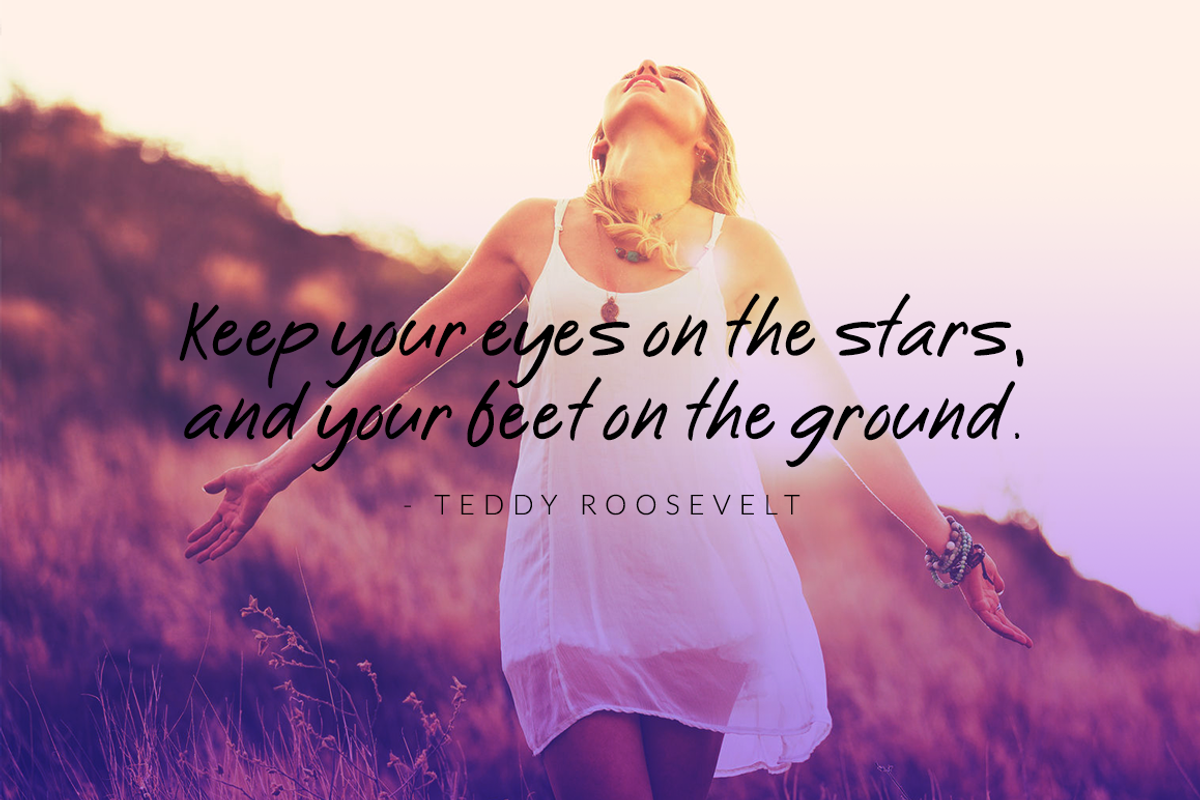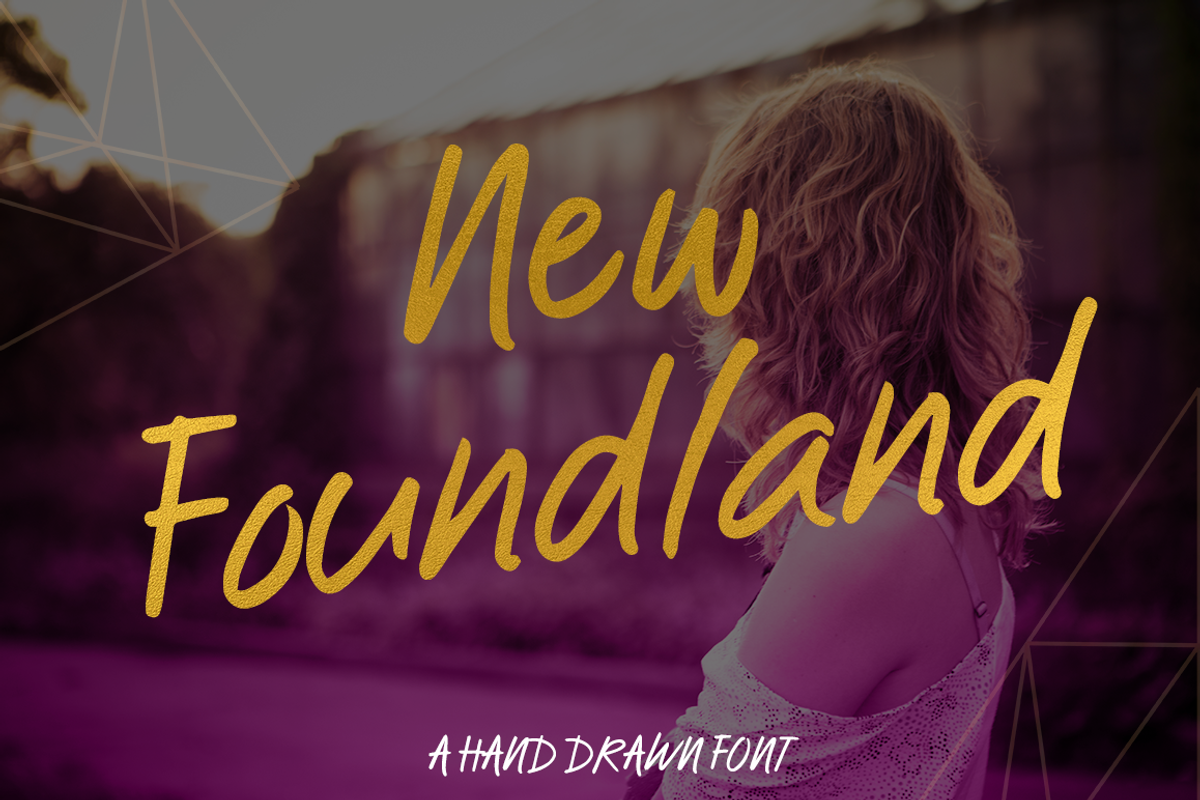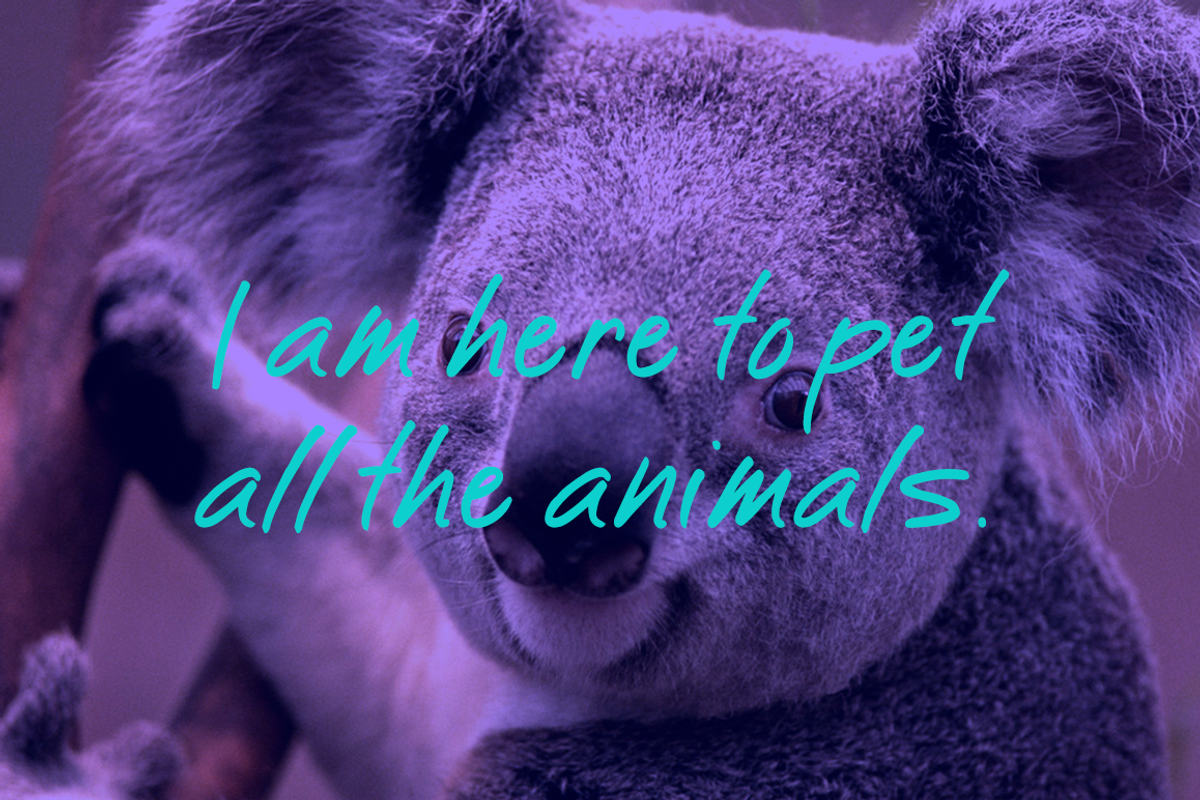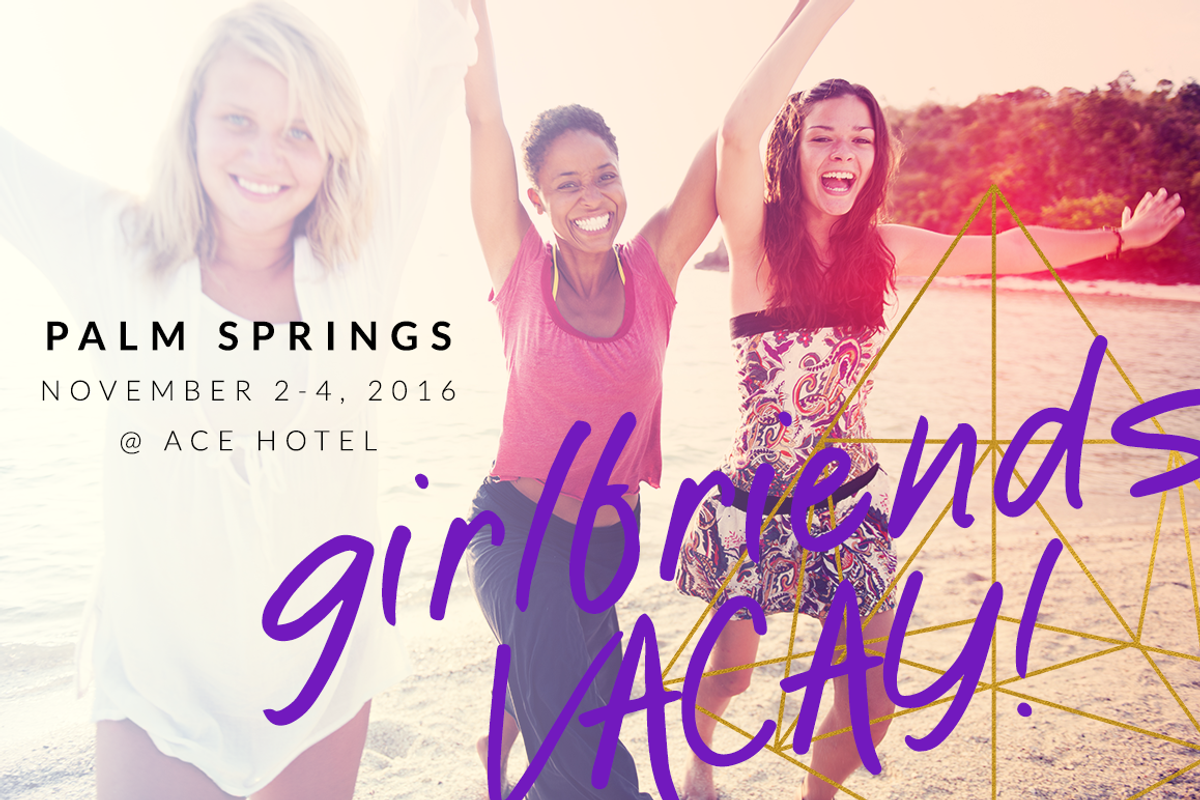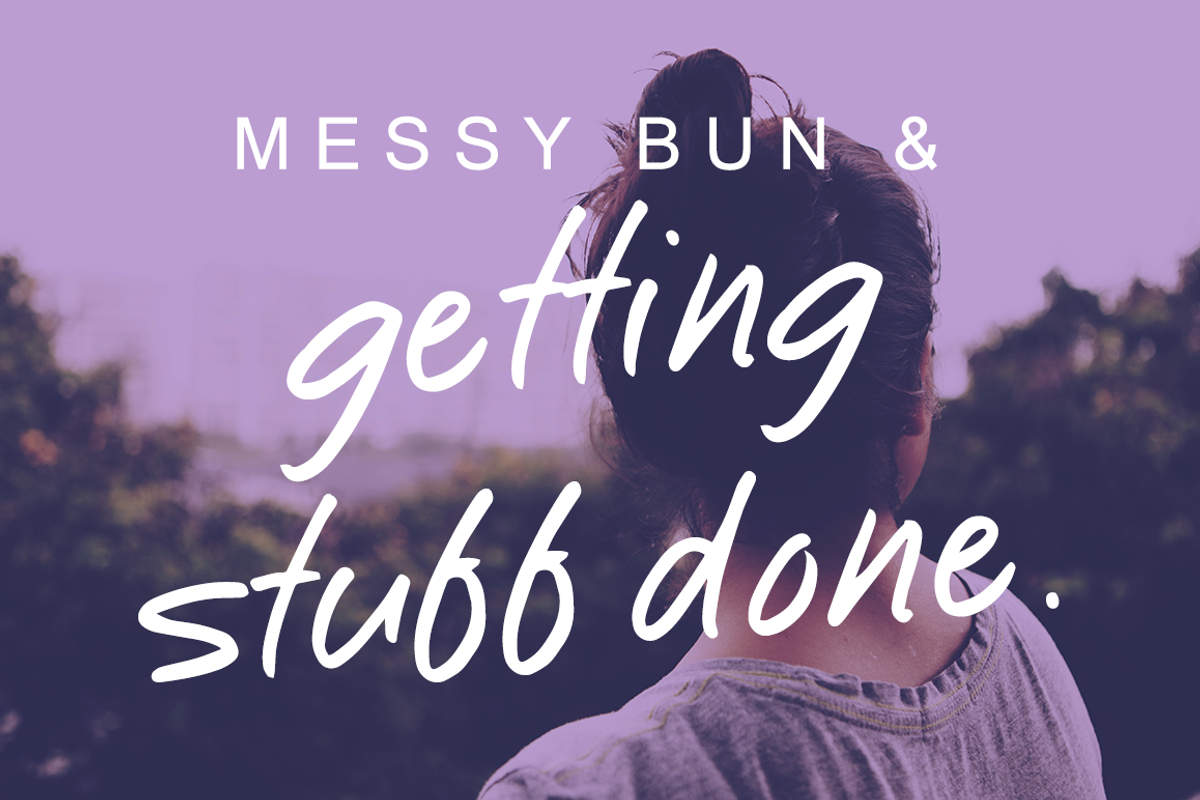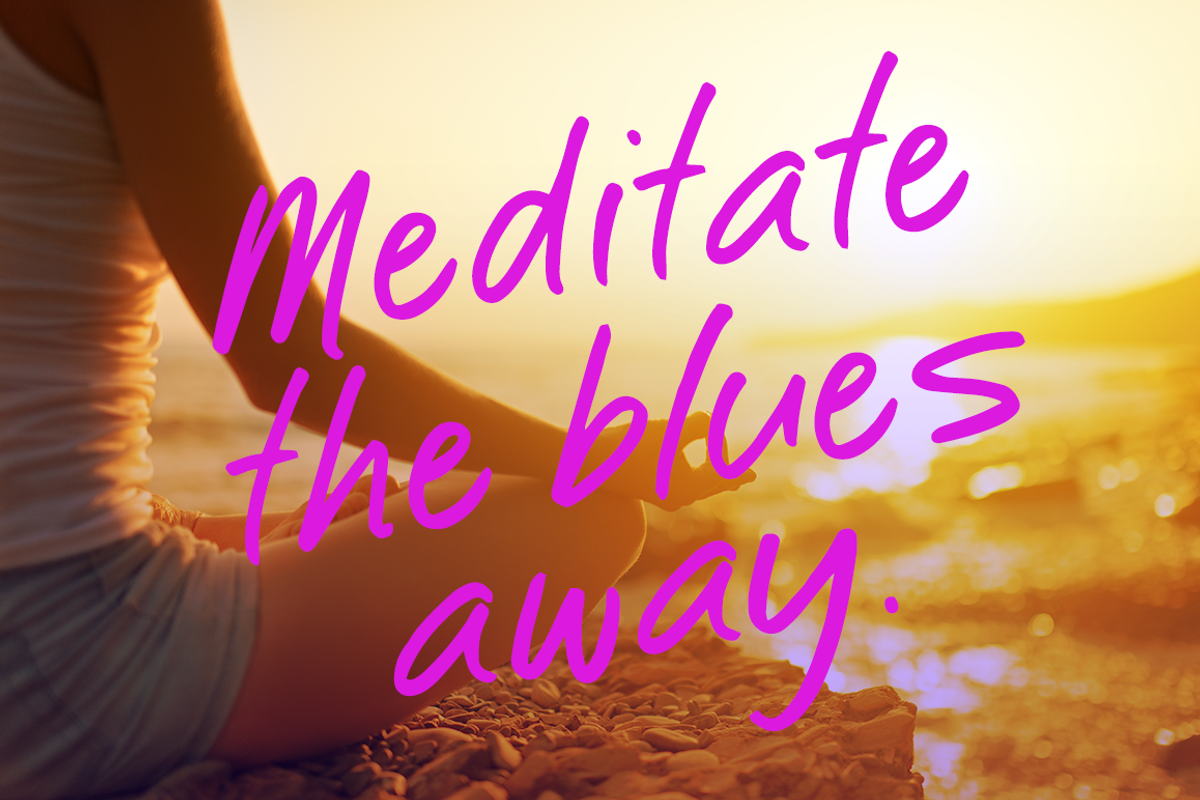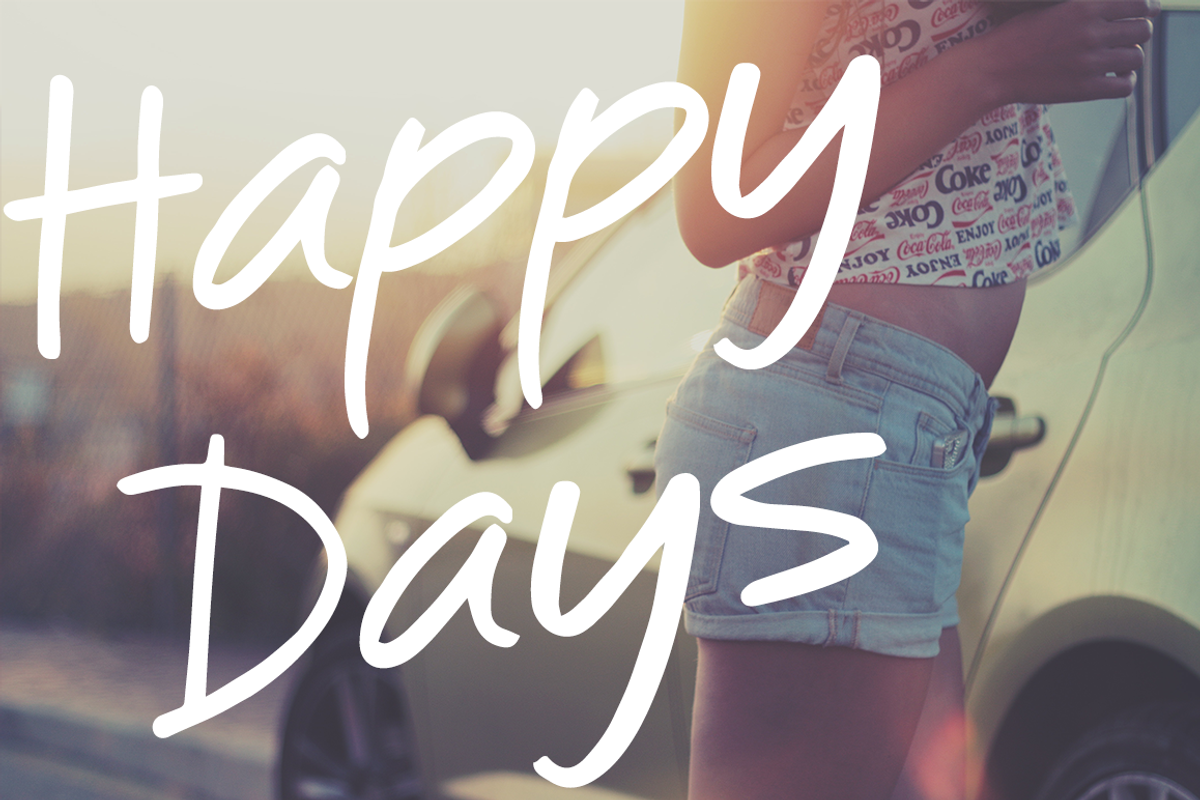
New Foundland Font
New Foundland Font by Coral Antler is a font selected for branding, posters, packaging, typography.
Why New Foundland Font is worth a look
New Foundland Font by Coral Antler fits naturally into Branding, posters, packaging, typography.